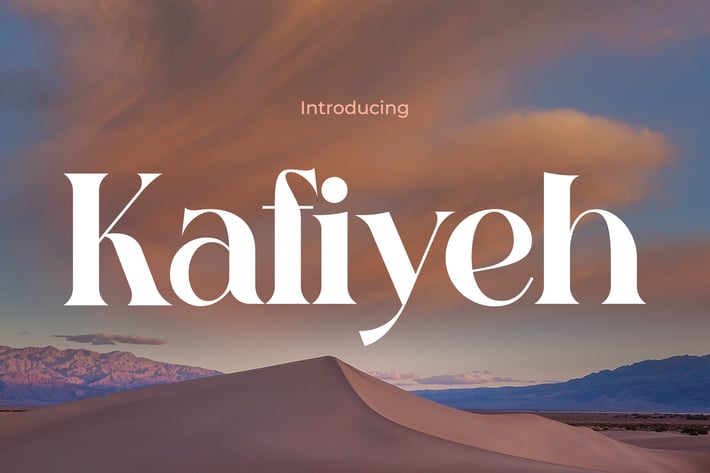
Kafiyeh - Elegance Modern Retro Font
Kafiyeh
A modern high-contrast serif font with elegant curves and editorial flair—crafted for visual sophistication.
Kafiyeh blends timeless serif structure with an expressive, high-contrast design, featuring delicate curves, dramatic vertical stress, and sleek ligature options. Its mood is elegant yet assertive, perfect for editorial storytelling, beauty campaigns, or luxury product branding. From the flow of its thin lines to the tension of its sharp terminals, Kafiyeh is meticulously designed to make each word feel thoughtfully styled.
Whether you're designing a high-end fashion zine, a minimal skincare brand, or a chic product catalog, Kafiyeh delivers instant credibility and graceful presence. It’s ideal for fashion editorials, luxury branding, minimalist packaging, and social media ads that need a confident, refined voice. The font's balance between soft rhythm and architectural structure adds depth and elegance to any layout.
Key Features :
Editorial Elegance
- High-contrast strokes for dramatic impact
- Smooth ligatures and refined serifs evoke modern luxury
Ideal for Upscale Branding
- Works beautifully on product packaging, fashion lookbooks, and magazines
- Strong visual hierarchy when used in headers or hero text
Stylish Letterform Details
- Signature letterforms with crisp terminals and graceful bowls
- Great readability in large display sizes